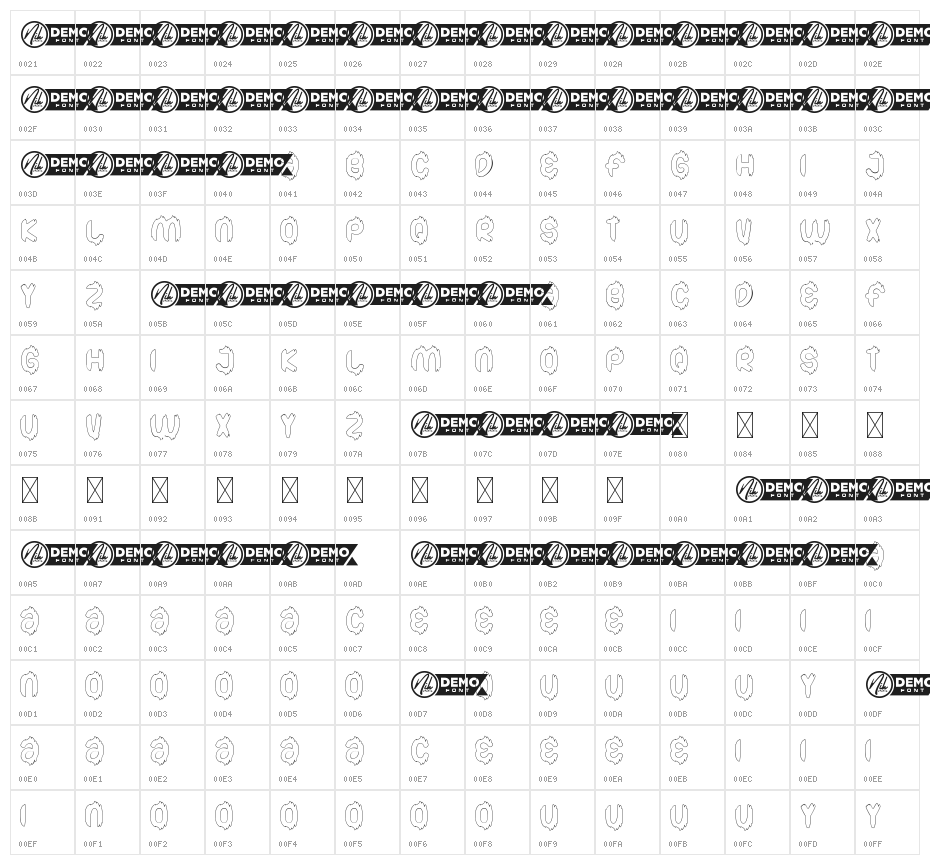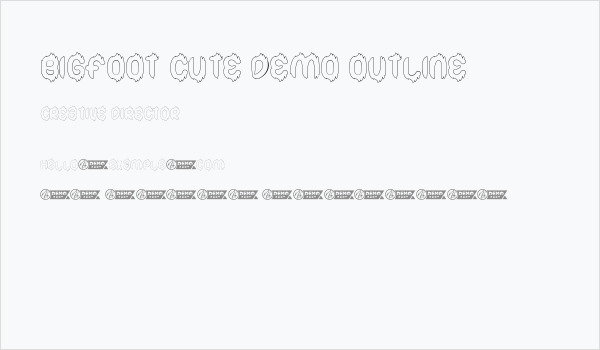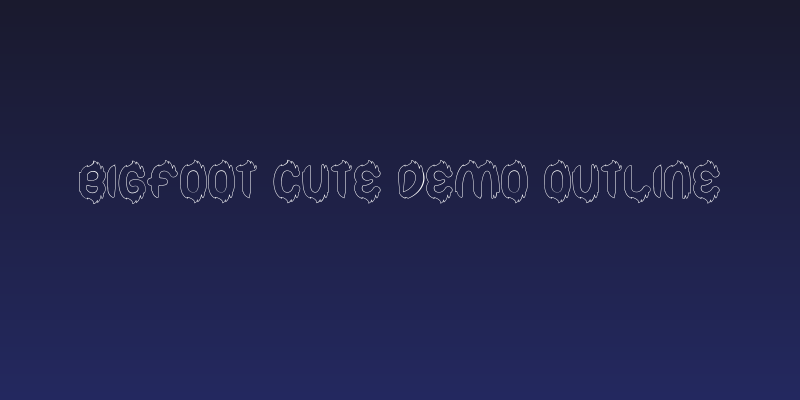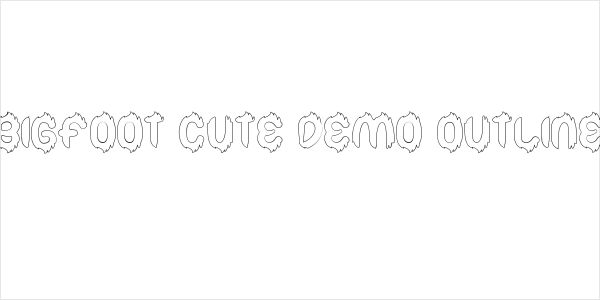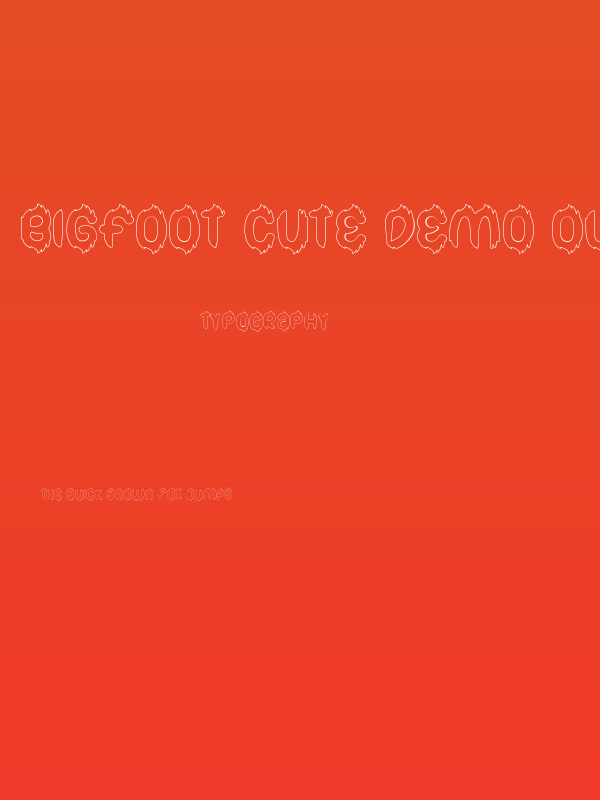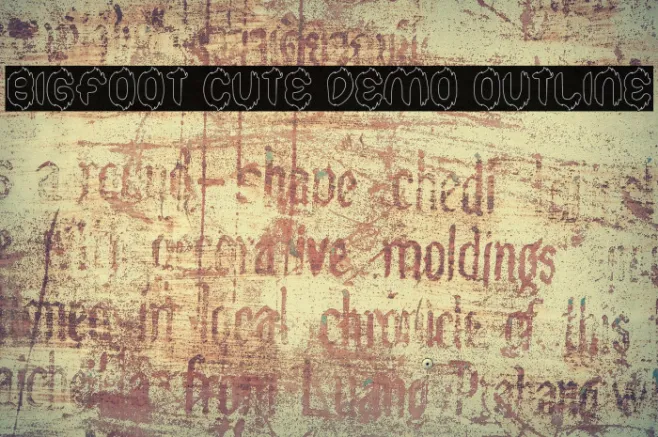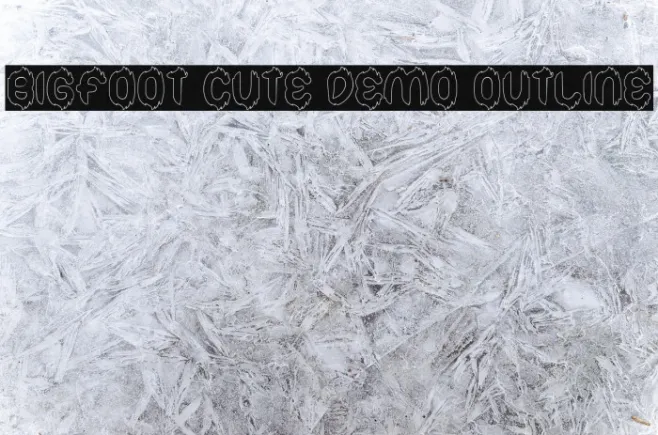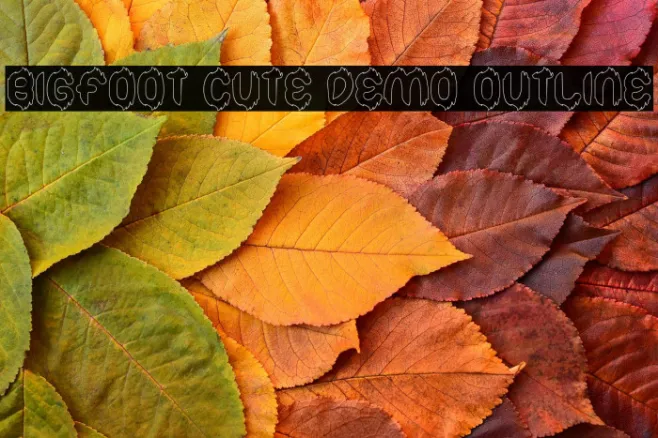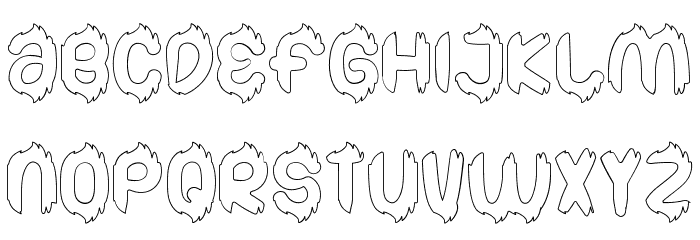
Bigfoot Cute Demo Outline Font
| Gesamtstil | Whimsical |
| Anwendungsfall | Headlines, Posters, Creative Designs |
| Vorgeschlagene Projekte | Ideal for children's book covers, playful posters, fantasy-themed invitations, or cartoon graphics. |